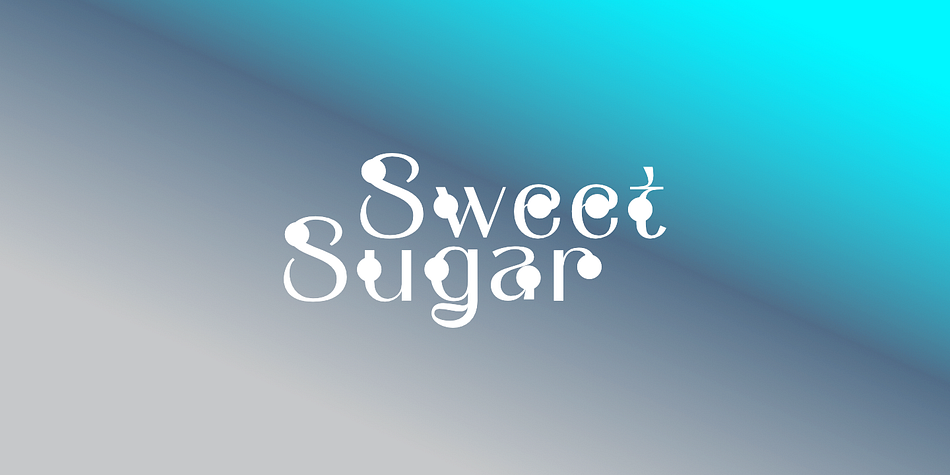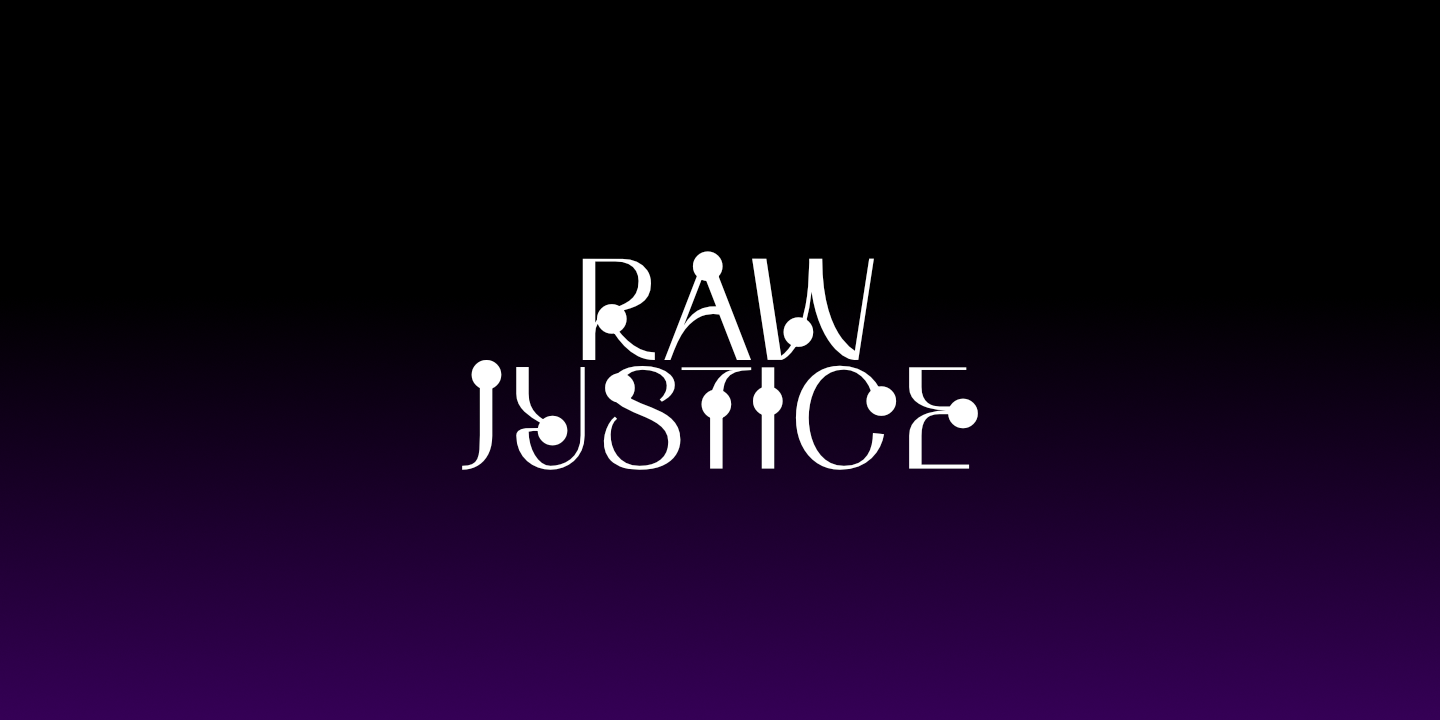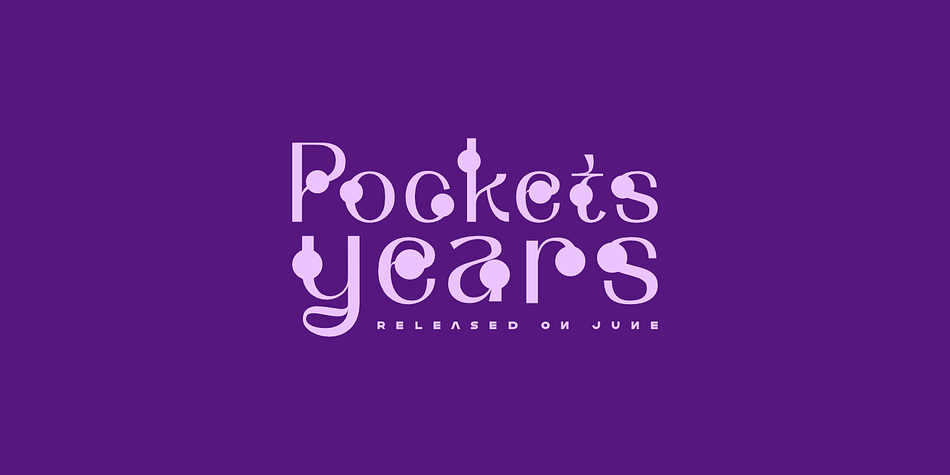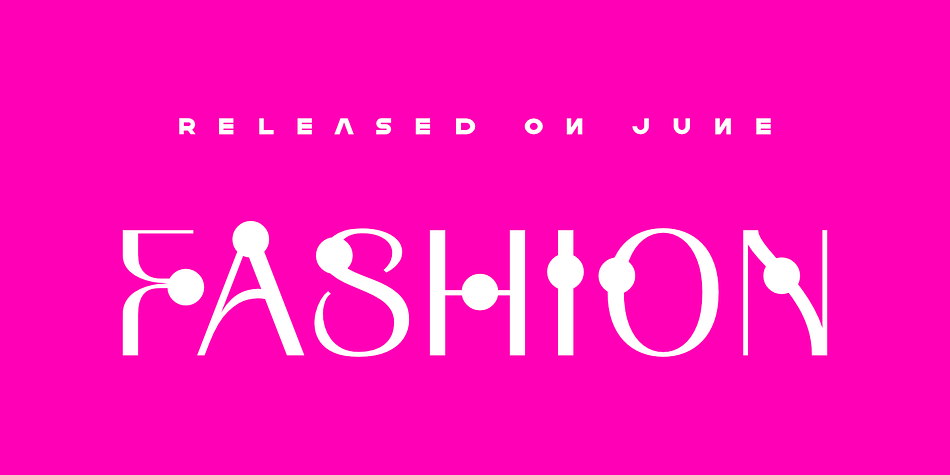
Lemonstyle Sweet
Lemonstyle Sweet is a display sans font family published by ffeeaarr.
Let your words don frills and your sentences wear ribbons. Our font is a celebration of all things sweet and dainty, a homage to the days of childhood when dolls were confidantes and make-believe